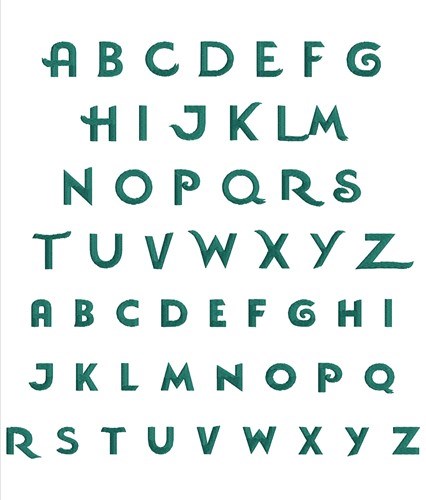
Unicorn Creatives is happy to present Zootopia Embrilliance Font - Decorative Letters - BX font machine embroidery font which has Playful decorative machine embroidery font spelling 'Zootopia' in vibrant green, perfect for cheerful projects on children's clothing or accessories. Available in BX font and Embrilliance formats. included. If you would like to view more embroidery fonts and alphabets please search our embroidery fonts page.
Zootopia Embrilliance Font - Decorative Letters - BX font